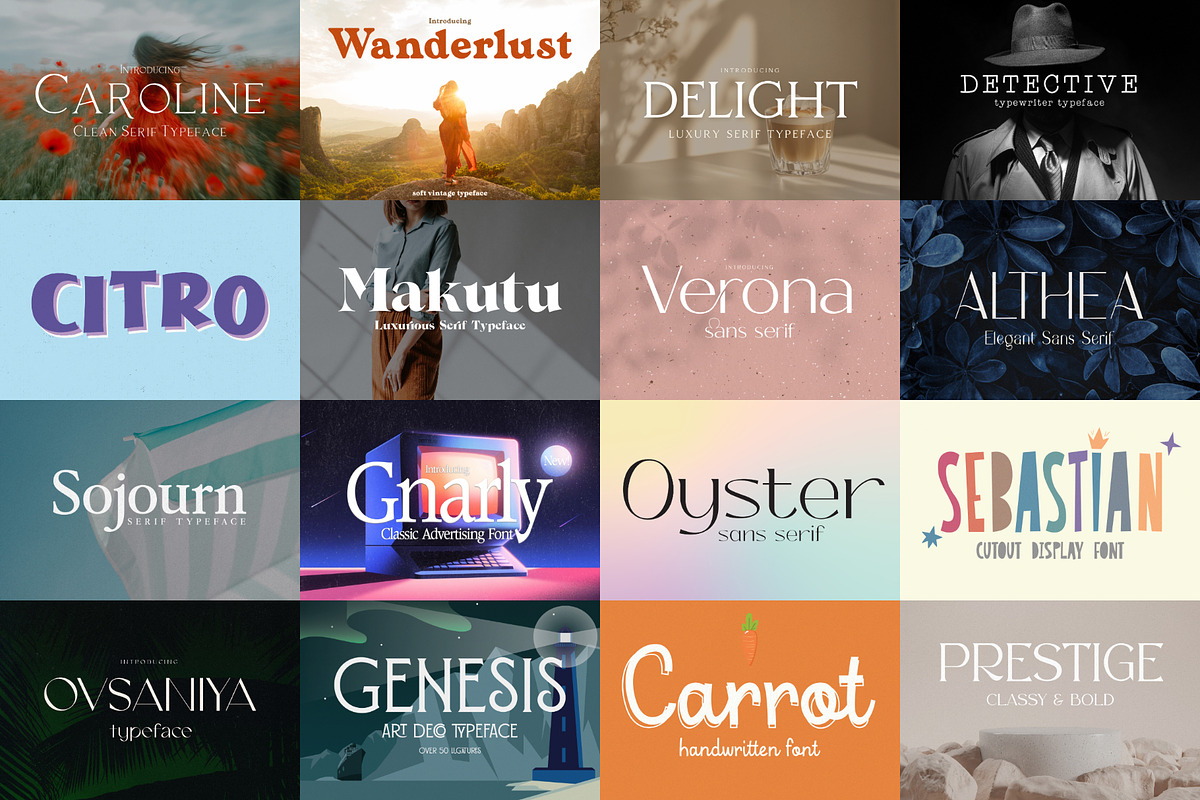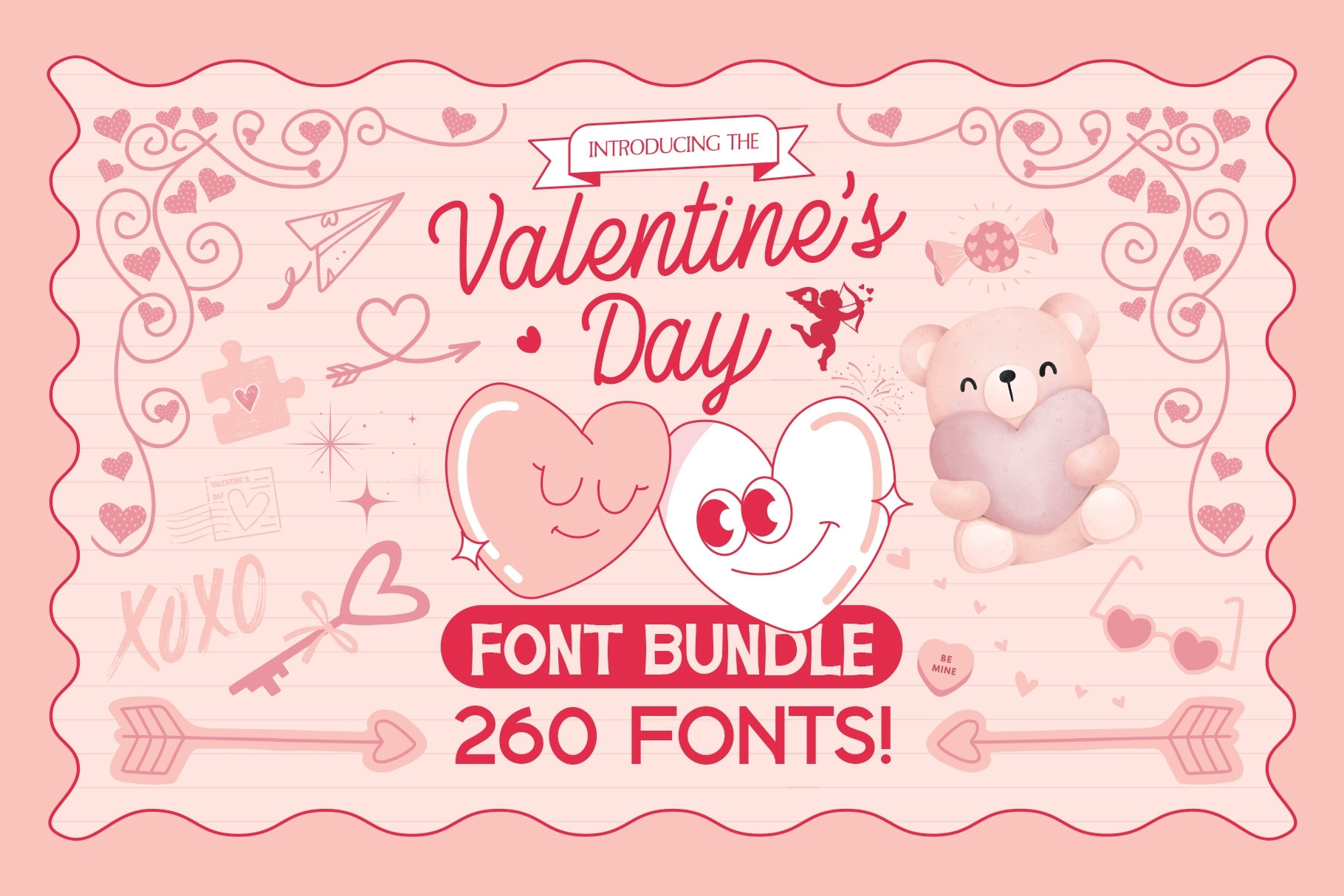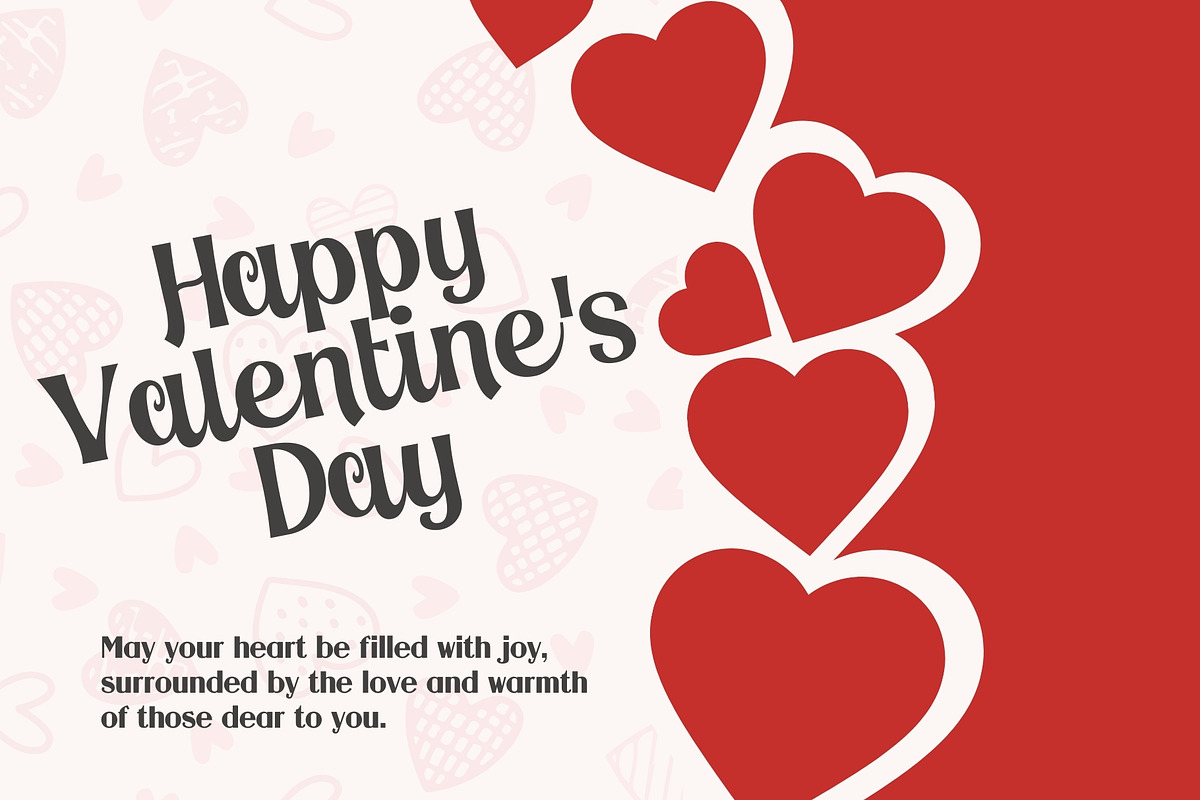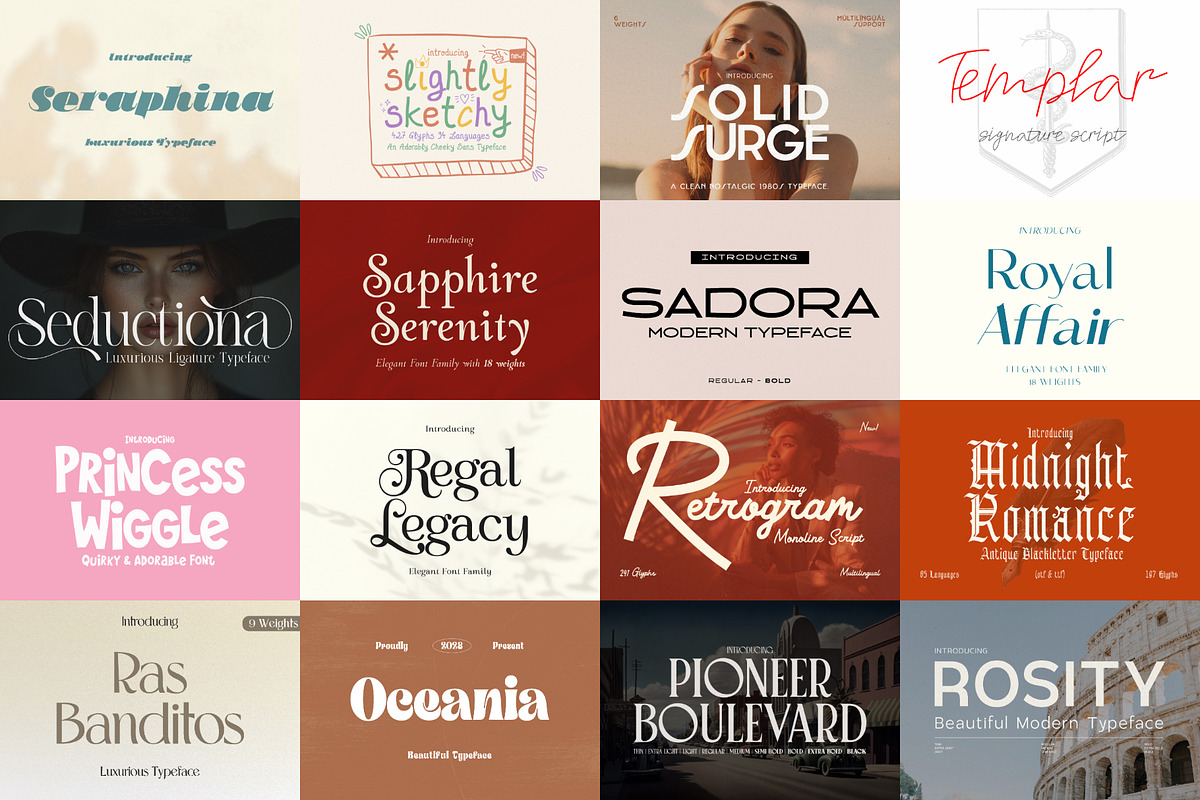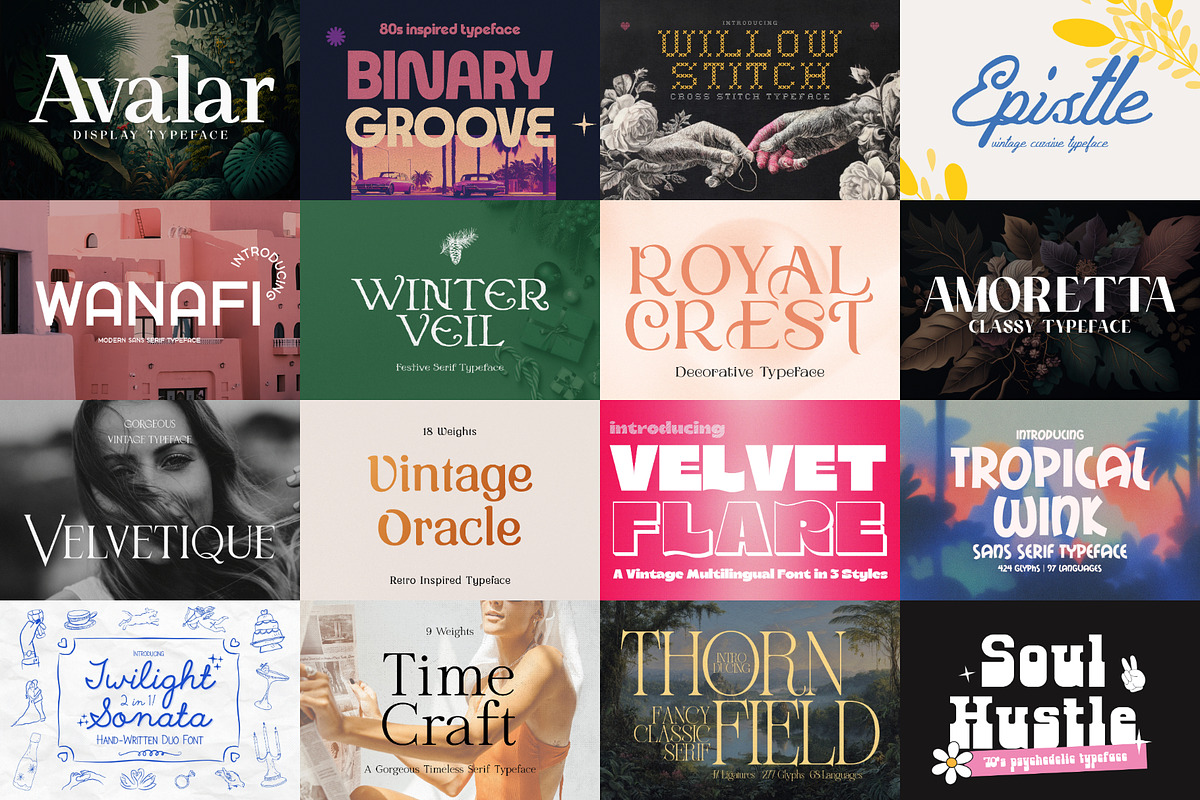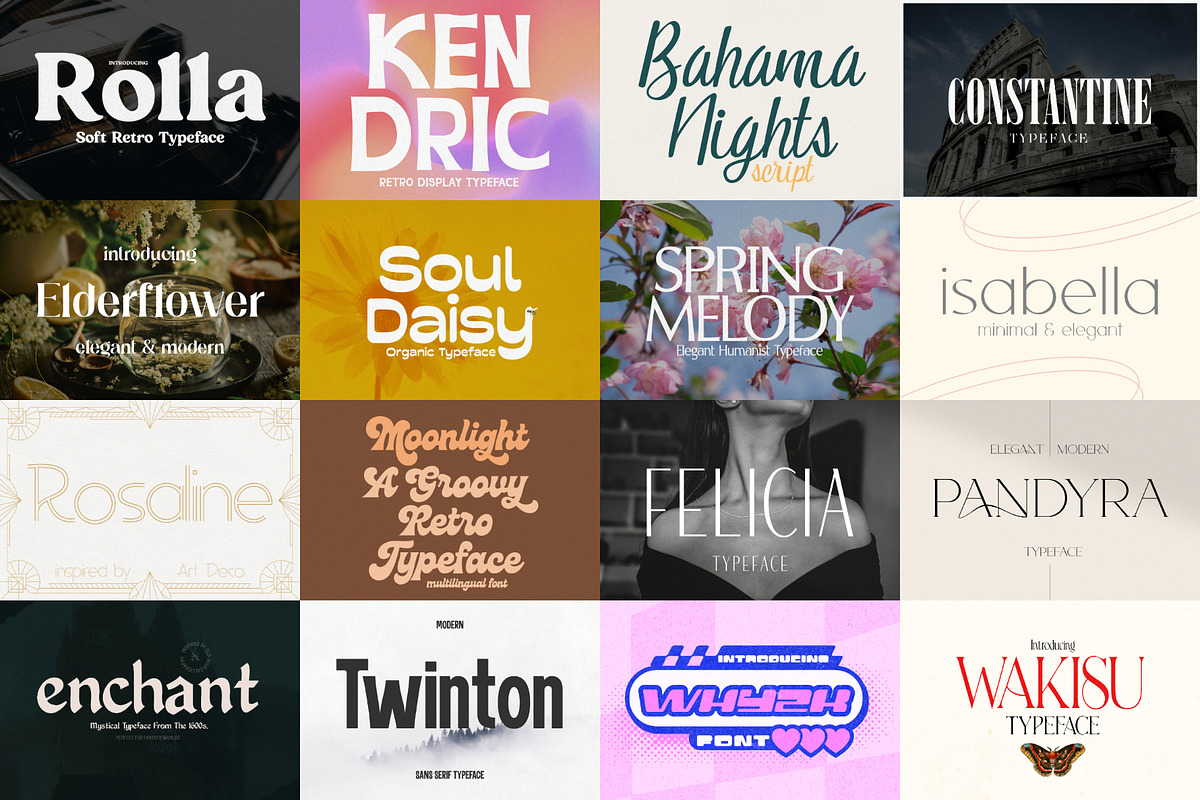
Valentine's Day Font Bundle
The Valentine’s Day Font Bundle is a massive collection of 260 carefully curated fonts created to cover every possible Valentine’s Day vibe — from sweet and romantic to bold, playful, vintage, gothic, retro, and ultra-clean professional styles.
❤️ Whatever Your Style — It’s Inside
Clean & professional sans + serif fonts for modern, serious, and elegant designs
Quirky, playful, and imperfect fonts for fun, handmade, and crafty projects
Romantic script & handwritten fonts for personal, heartfelt designs
Vintage & retro fonts for nostalgic Valentine aesthetics
Classy gothic & decorative fonts for dramatic, bold statements
Modern display fonts for trendy, eye-catching designs
No compromises. No gaps. No fillers. Just 260 fonts you’ll actually use.